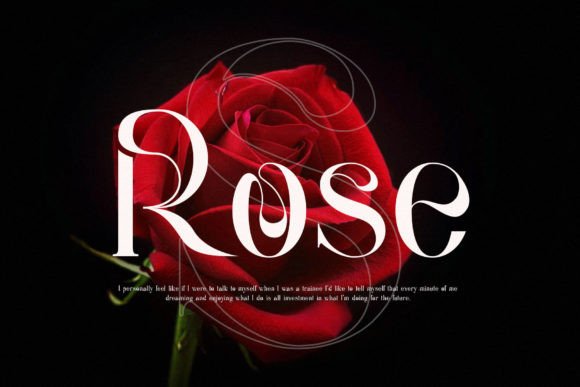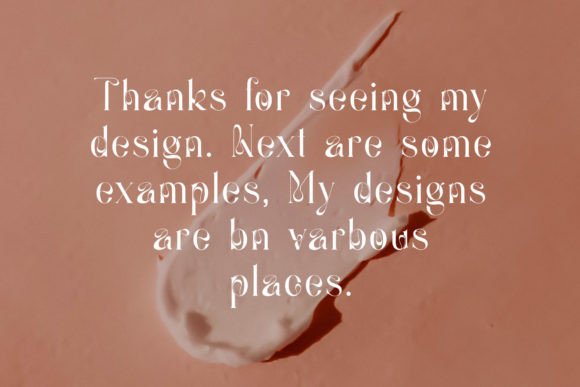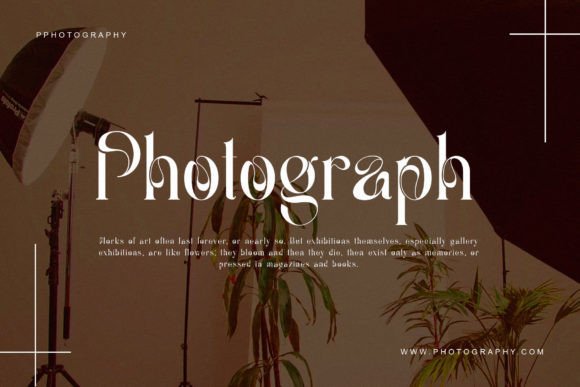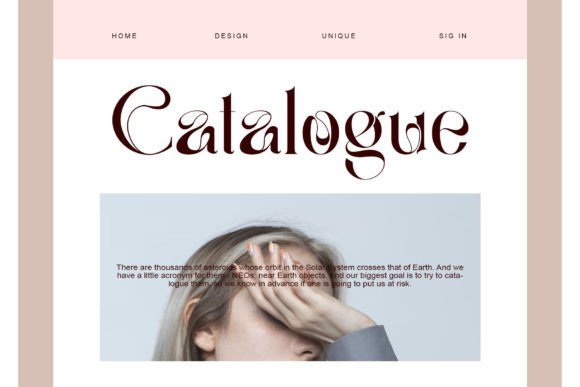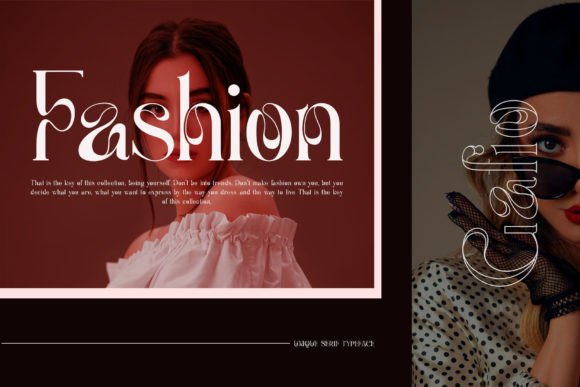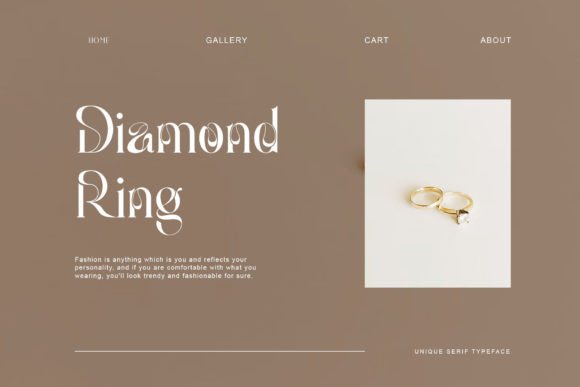
Unleash the Elegance of Your Brand with Gafia Font
Have you ever been browsing through a high-end magazine, only to be struck by the sophistication and refinement of the typography? That’s the magic of Gafia Font. This luxurious serif font is designed to evoke feelings of prestige and exclusivity, making it the perfect choice for designers who want to elevate their brand to new heights.
Gafia Font is more than just a font – it’s a statement piece that adds a touch of elegance to any project. Its sleek and minimalist design, paired with elegant serifs, creates a timeless and classic look that is sure to impress. Whether you’re working on a luxury product, high-end branding, or editorial layouts, Gafia Font is the perfect tool to help you achieve your design goals.
Gafia Font Key Features
- Unique Characteristics: Gafia Font features a unique blend of modern and classic elements, with a distinctive geometric shape and a wide range of ligatures and swashes.
Gafia Font Review
Overall, I was impressed by Gafia Font, but as with any font, it has its strengths and weaknesses.
- ✨ Unique and elegant design: Gafia Font has a distinctive look that sets it apart from other fonts.
- ✨ Versatility: It’s suitable for a wide range of applications, from body text to headings and titles.
- ✨ Legibility: The font is easy to read, even at smaller font sizes.
- ⚠️ Limited language support: Gafia Font may not be optimized for languages with non-Latin scripts.
- ⚠️ Not ideal for small text: While the font is legible, it may not be the best choice for very small text sizes.
- ⚠️ May not be suitable for very formal documents: The font’s unique design may not be suitable for extremely formal or professional documents.
In conclusion, Gafia Font is a solid choice for designers looking for a distinctive and versatile font. While it may have some limitations, it’s a great option for many projects.
Tips for Getting the Most Out of Gafia Font
Use Gafia font for headings and titles to add a touch of elegance and sophistication to your designs.
Pair Gafia font with a sans-serif font for a clean and modern look.
Experiment with different font sizes and styles to create visual interest and hierarchy in your designs.
Use Gafia font for:
Headings and titles in brochures, flyers, and business cards.
Body text in magazines, newspapers, and online articles.
Logo designs and branding materials.